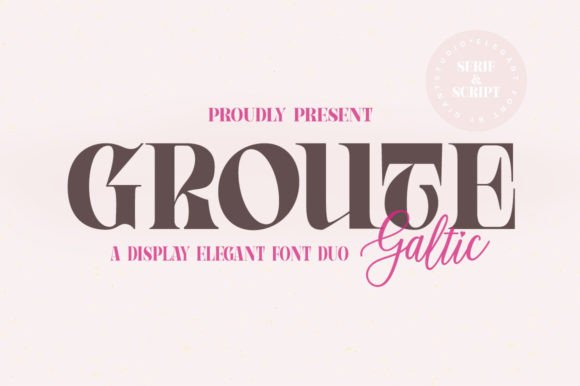
Introducing Groute Font, the epitome of elegance and style in the world of fonts. This exquisite script font, created by the talented designer gianstudio12, is the perfect choice for anyone looking to elevate their design game.
With its specially designed uppercase letters, Groute Font exudes a creative mood and boasts perfect shapes that are sure to captivate your audience. Inspired by the bold and natural look of serifs, this font is a true work of art, making it ideal for today's fashion-forward projects.
Bold, balanced, and oh-so-varied, Groute Font was born to add a touch of luxury and beauty to your designs. Its versatility knows no bounds, making it suitable for a wide range of applications. From invitation designs to logos and branding, from photography to advertising, this font will effortlessly elevate your creations.
But that's not all - Groute Font also comes in a script version, further expanding its potential. Its graceful curves and flowing lines make it the perfect choice for adding elegance to any project. Whether you're creating watermarks, social media posts, product packaging, or product designs, this font will exceed your expectations.
Immerse yourself in the world of Groute Font and discover endless possibilities. Let your creativity soar as you explore the realms of labels, wedding designs, stationery, and special events. Whatever theme you have in mind, this font will bring it to life in the most captivating way.
Don't settle for the ordinary when you can have extraordinary. Groute Font is here to make a statement and leave a lasting impression. Embrace the beauty of this font and let it speak volumes about your creativity and attention to detail.
Join the league of top designers who have already fallen in love with Groute Font. Experience the magic for yourself and see why it's the best choice for band logos and beyond.